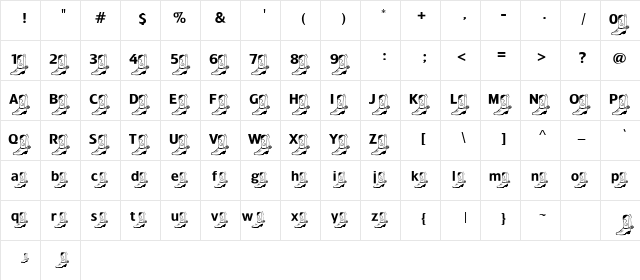
CowboyBoot Regular
Design Context for CowboyBoot Typeface
CowboyBoot taps into classic Western woodtype traditions — bold, characterful, and impossible to ignore.
A natural fit for craft spirits, ranch branding, rodeo events, and Americana-inspired design work.
Font Pairing: Combine CowboyBoot with a simple slab or neutral sans — period-accurate companions reinforce the vintage feel without competing for attention.
Pro Tip: Use CowboyBoot for short, impactful bursts of text — it shines in poster headlines and product names rather than extended copy.